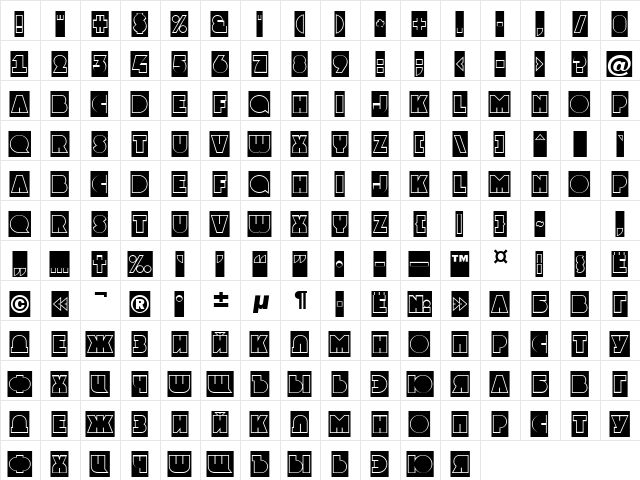
a_GrotoCmGr Normal
Design Context for a_GrotoCmGr Typeface
a_GrotoCmGr is a composed and adaptable typeface that performs quietly and consistently across a wide range of design contexts.